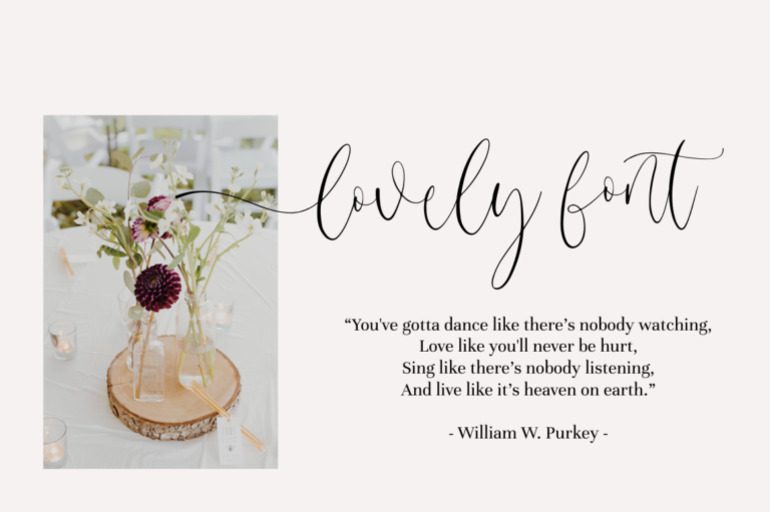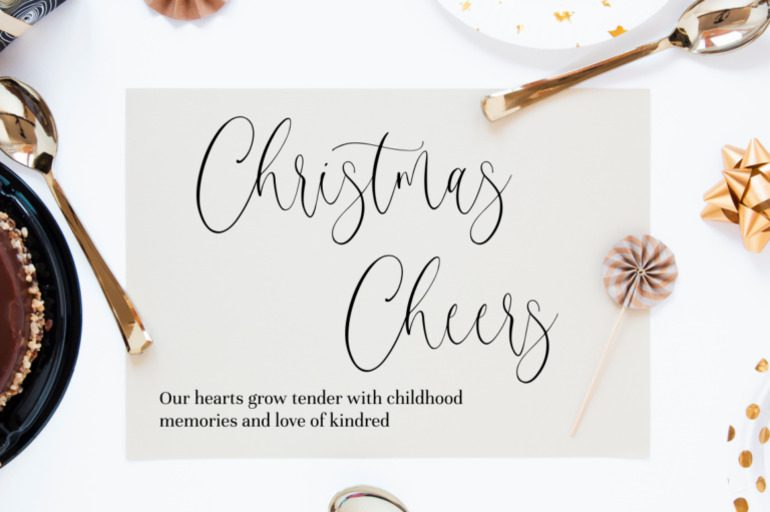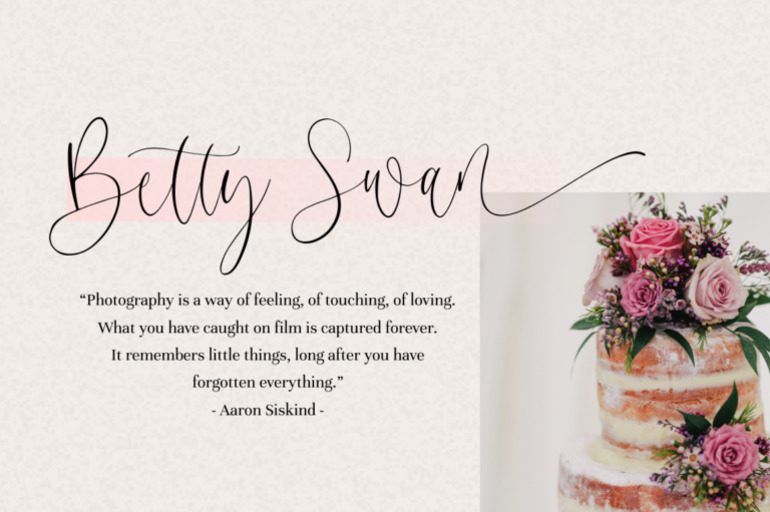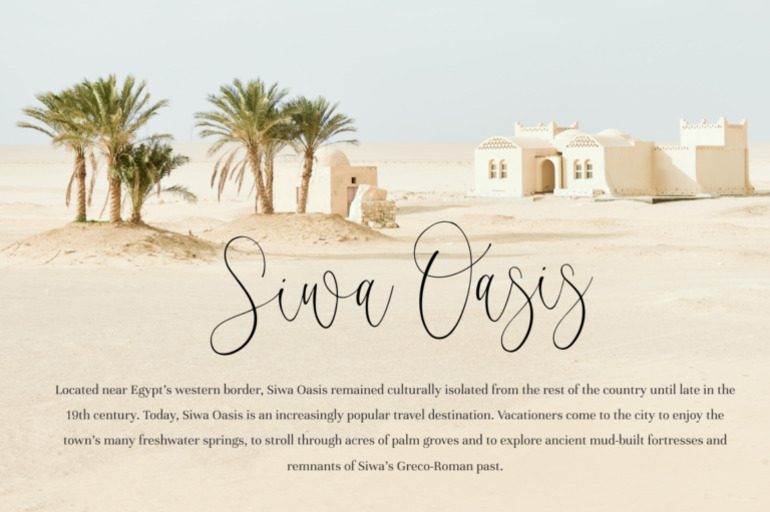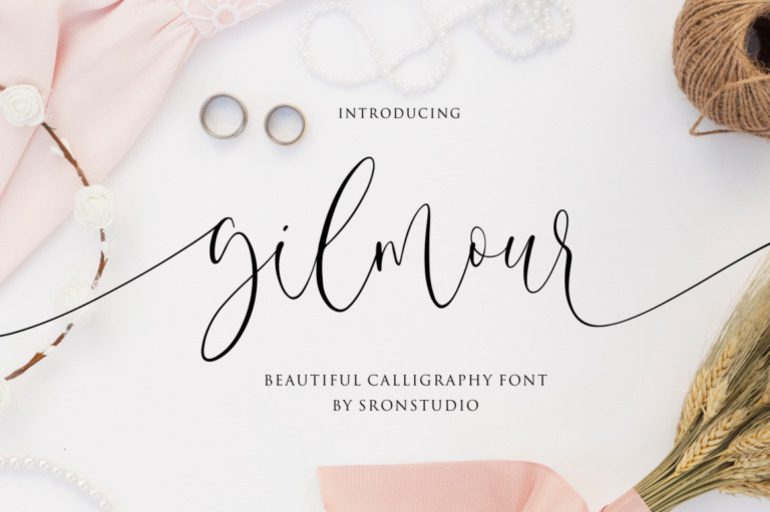
Gilmour Font
Gilmour is a beautiful calligraphy font perfect for branding, invitation, stationery, wedding designs, social media posts, advertisements, product packaging, product designs, label, photography, watermark, special events or anything. Gilmour comes with full set of uppercase and lowercase letters, swash alternates, ligatures,multilingual symbols, numerals and punctuation.